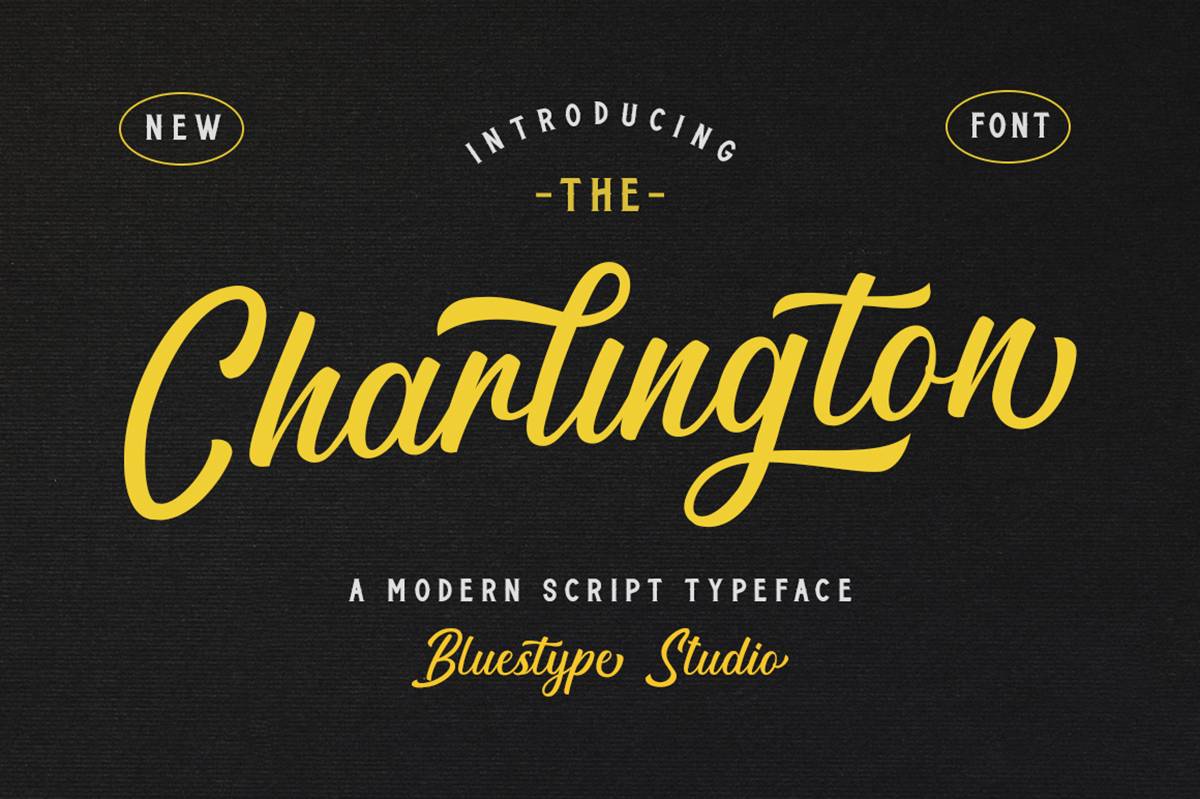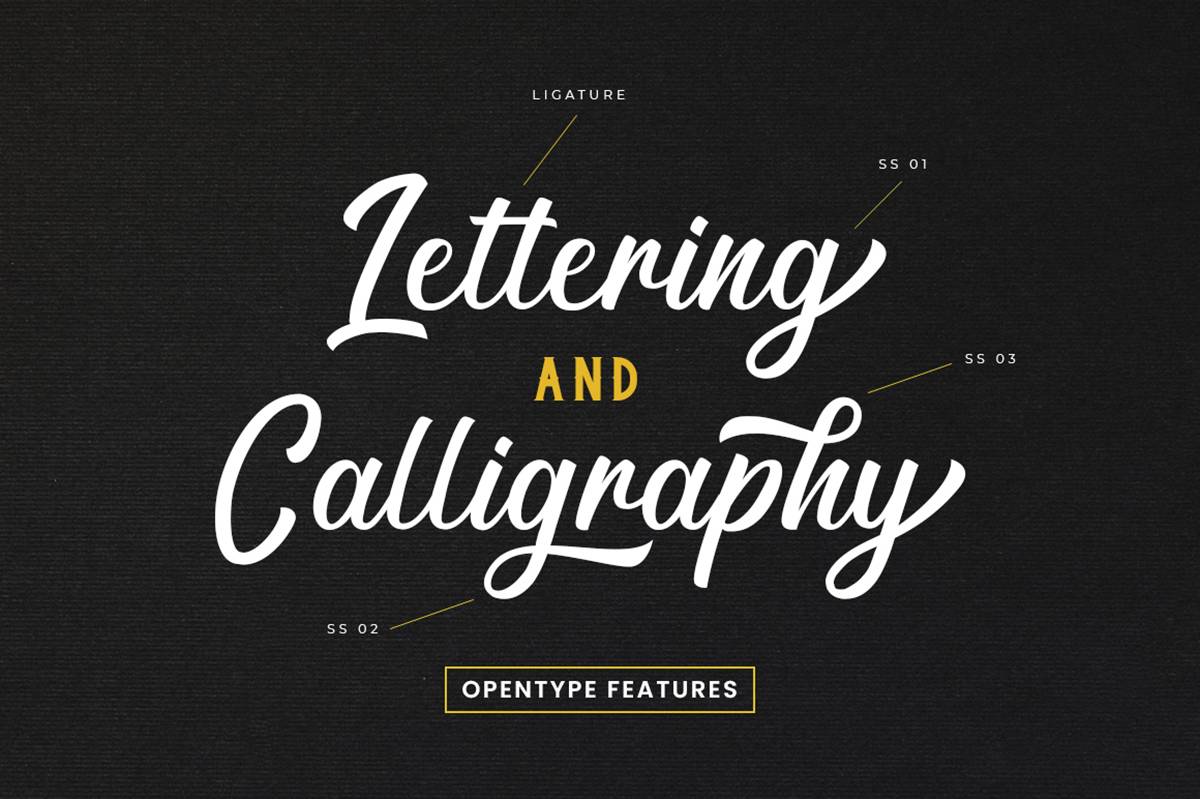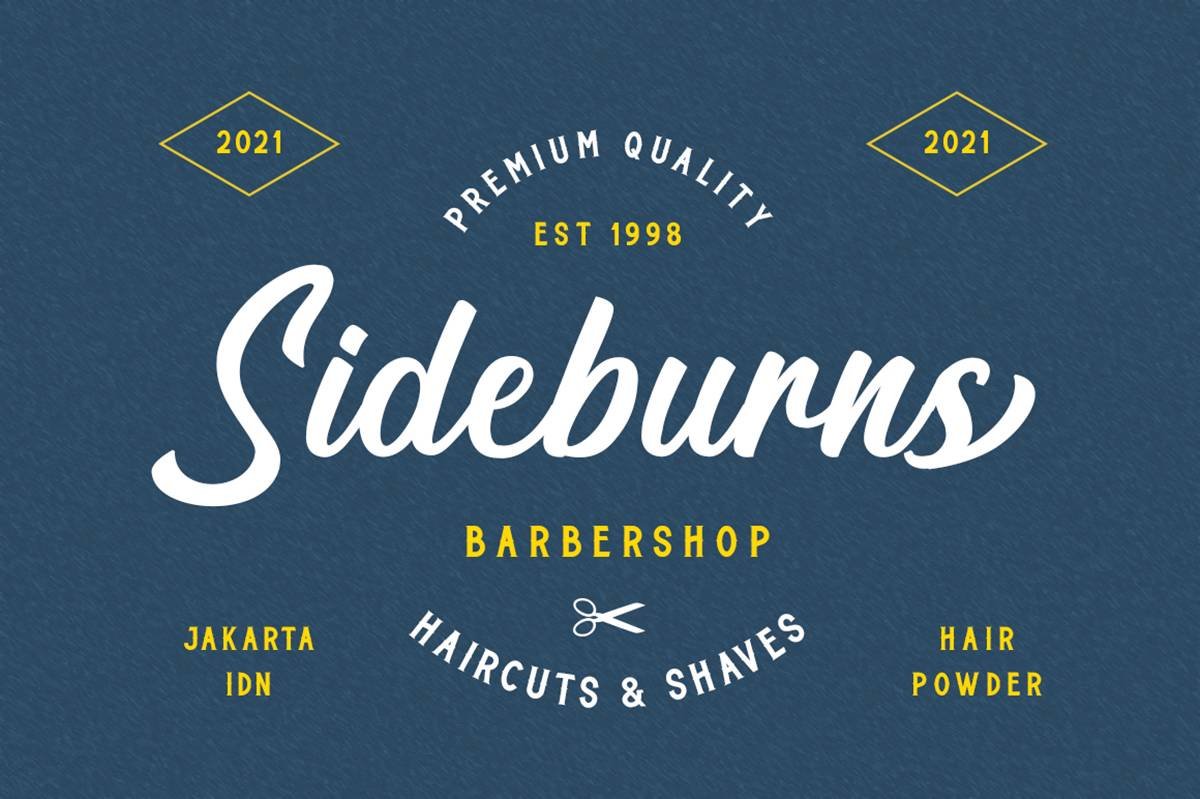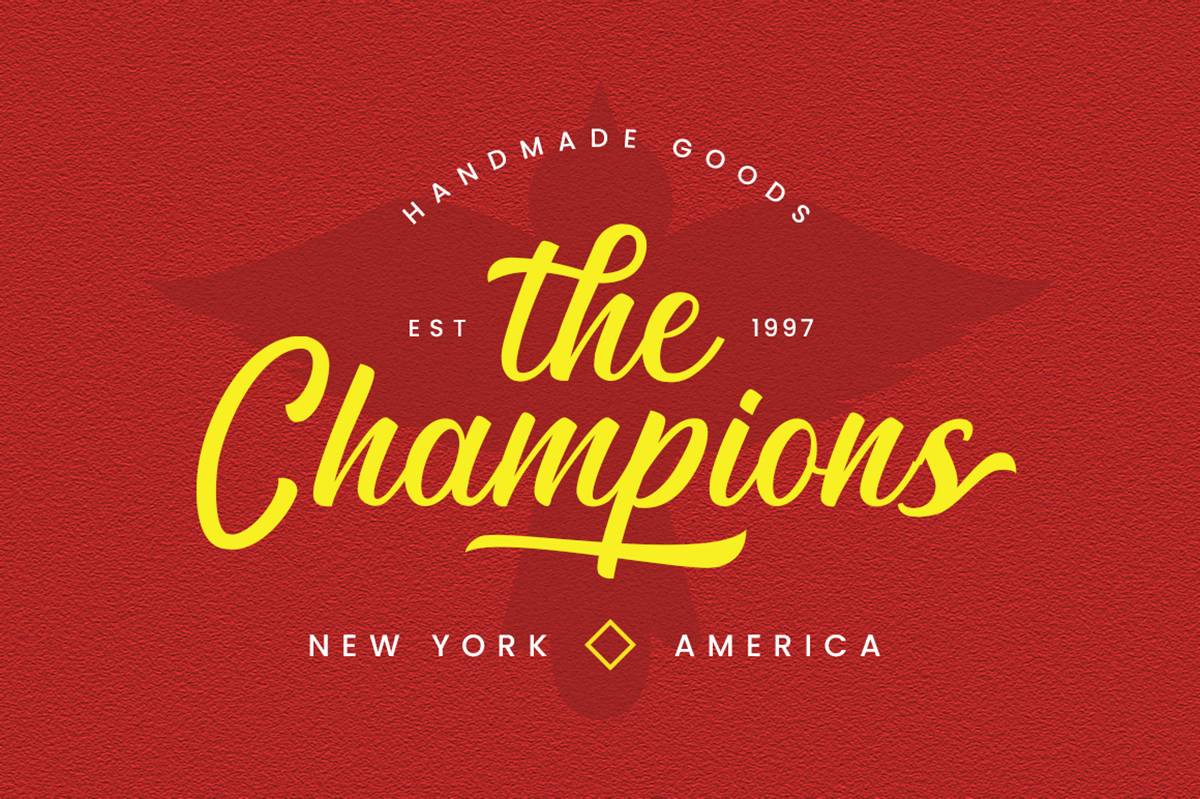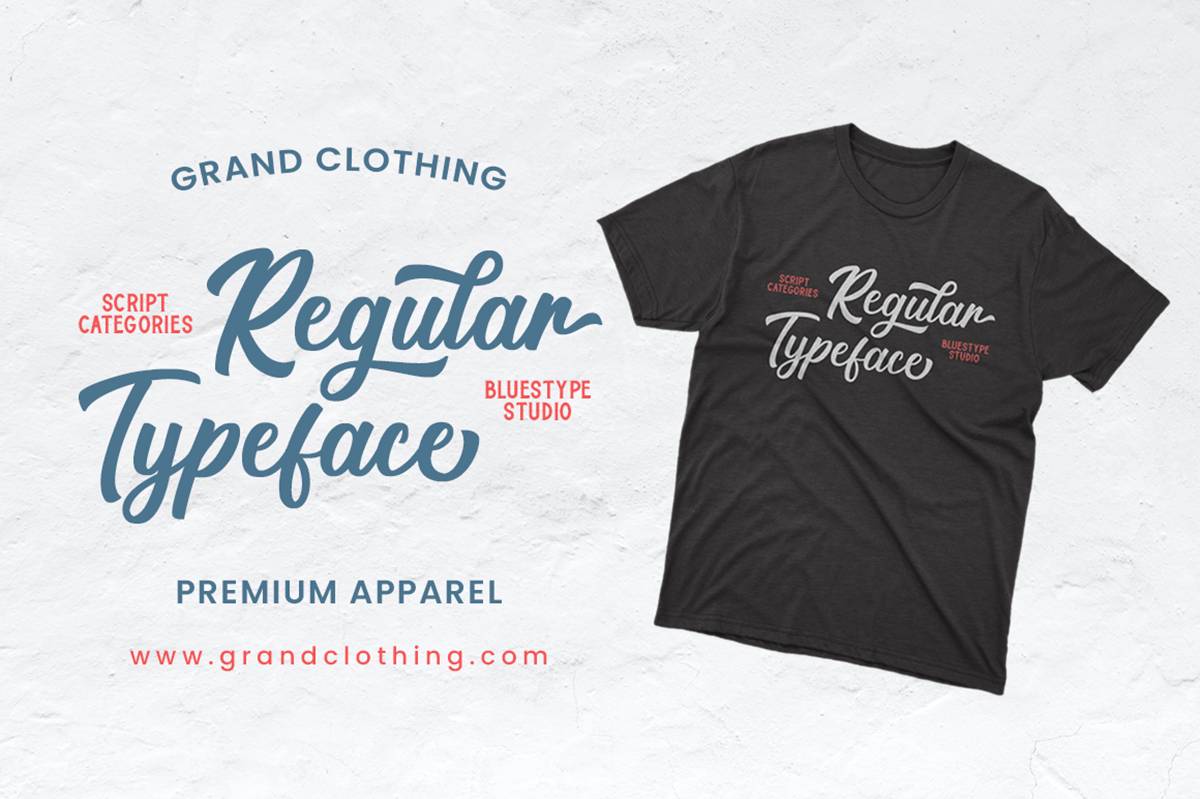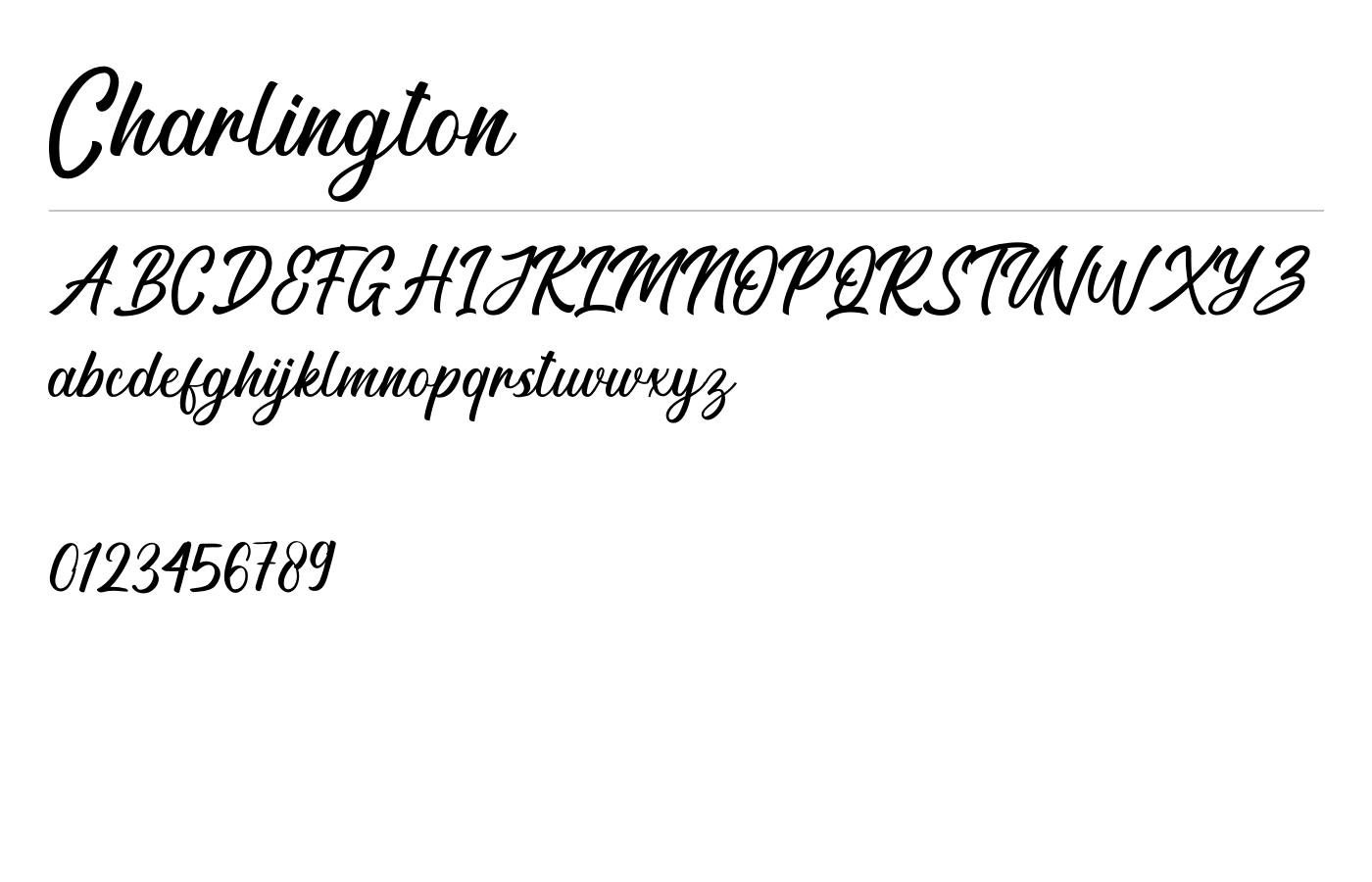
Charlington is a graceful script font with smooth, flowing strokes that create an elegant and approachable feel. Its moderate weight and slightly condensed letterforms offer a clean, stylish look perfect for branding, invitations, and headlines where a touch of sophistication and warmth is desired. This font works well in designs that seek to blend classic charm with modern readability.
Charlington Font
About Charlington Font
| Font family | Charlington Font |